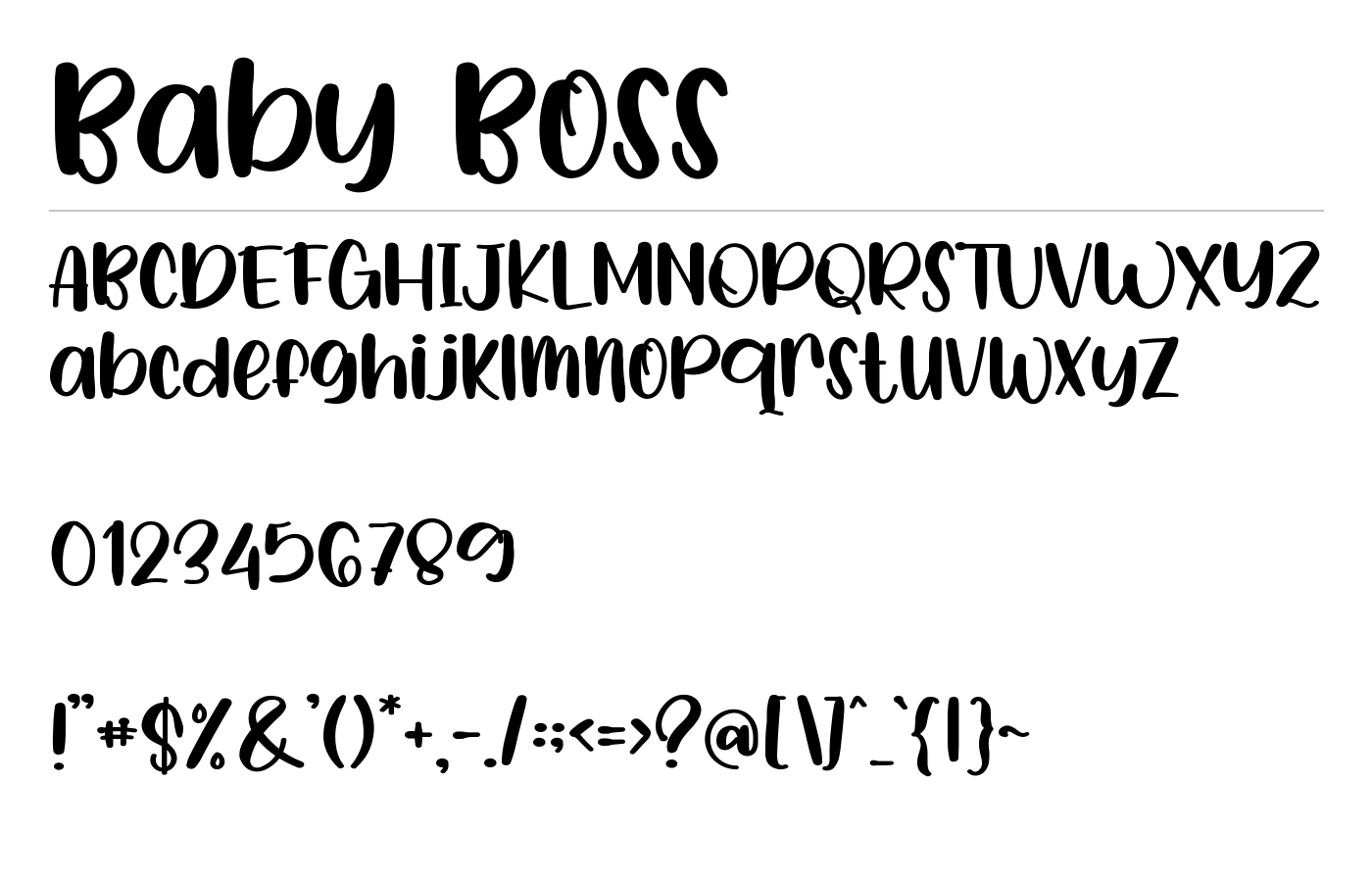
Baby Boss is a playful handwritten sans serif font with a casual, friendly vibe. Its rounded, irregular letterforms and moderate weight give it an approachable, lively feel that works well for children’s products, informal branding, and creative projects. This font’s unique, quirky style adds personality and charm, making text feel warm and engaging.
Baby Boss Font